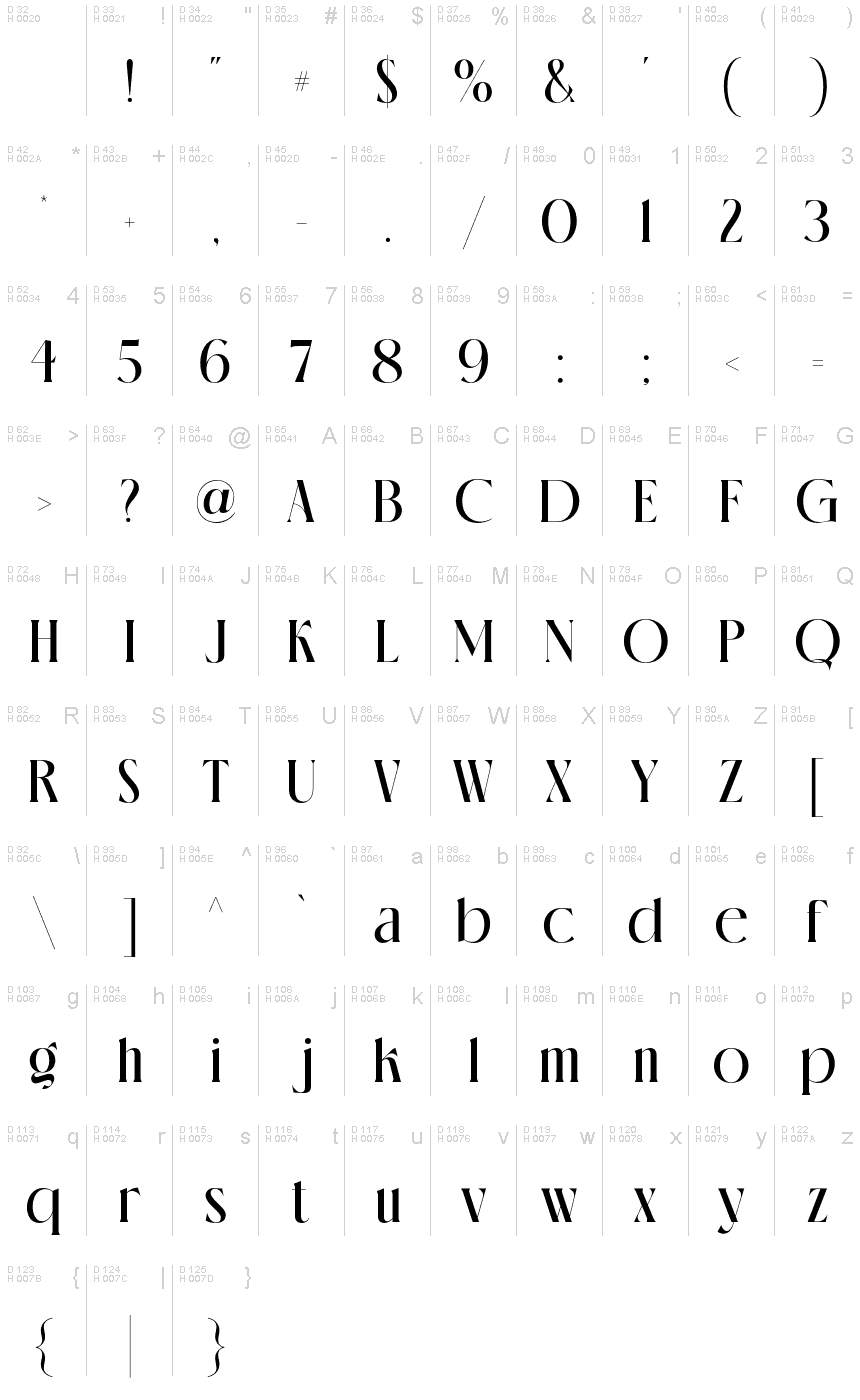
glossy-Regular
Glossy, a sophisticated serif font designed by Sansakerta, adds an elegant touch to any project.
With its semi-light weight and semi-condensed width, this font is perfect for creating upscale invitations or refined brand logos. Its clean lines and subtle curves exude professionalism and exclusivity, making it a great choice for luxury fashion magazines or high-end product packaging. The Glossy font's timeless appeal also makes it suitable for vintage-inspired book covers or elegant wedding stationery.
Elevate your designs with Glossy's sleek serifs and distinctive flair.